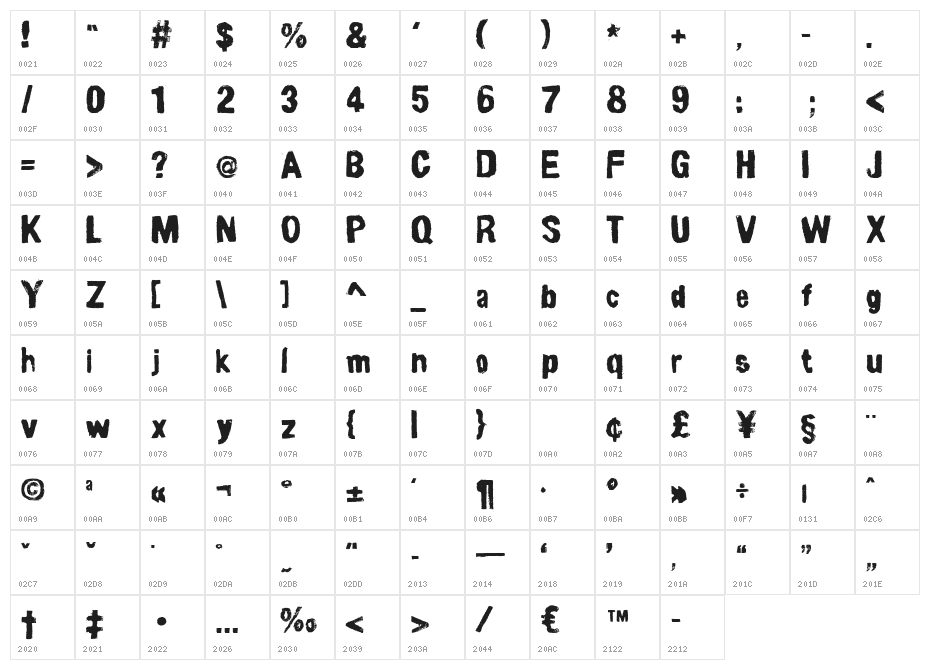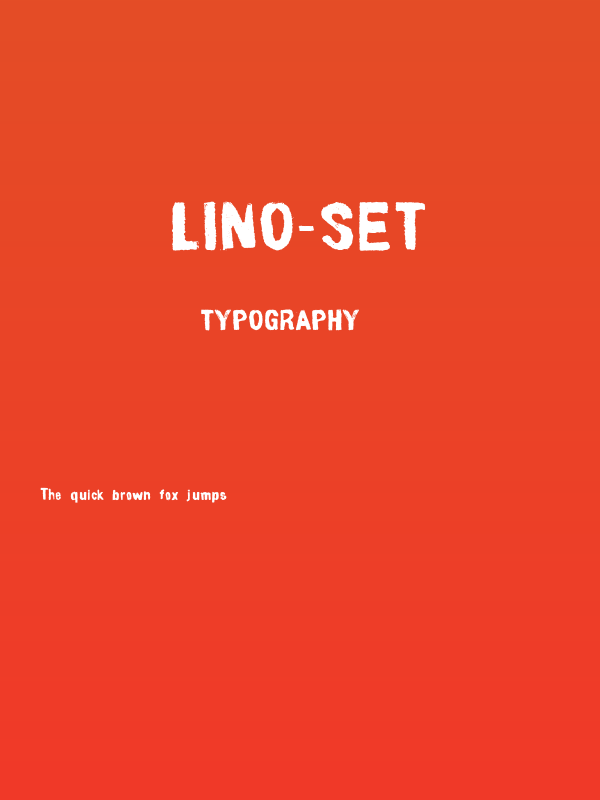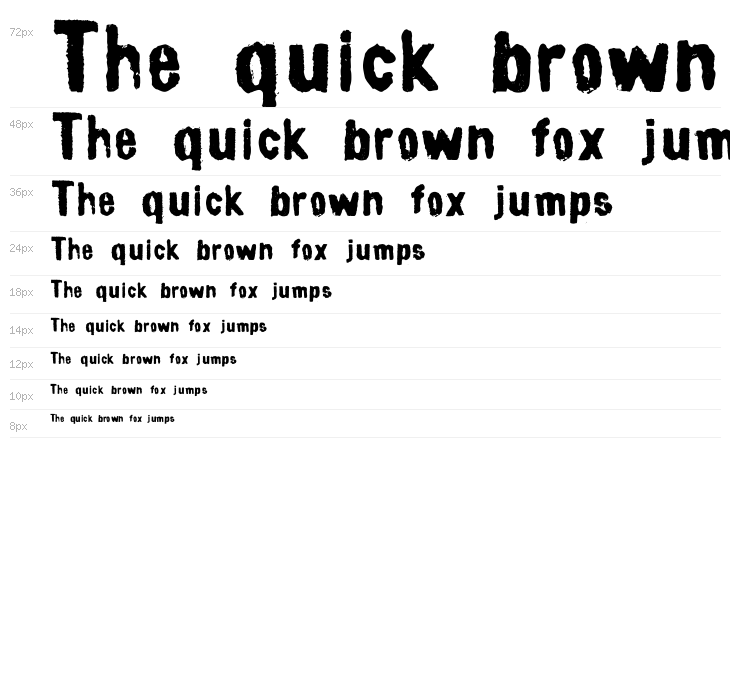
lino-set Font
lino-set Description
This font exhibits a bold and rugged style, characterized by its distressed and textured appearance. The letters have an uneven, hand-crafted look, reminiscent of vintage printing techniques. The uppercase and lowercase characters maintain a consistent weight, with slightly irregular edges that add to the font's unique charm. The numbers and special characters follow the same aesthetic, providing a cohesive look across all glyphs. This font's boldness and texture make it stand out, offering a distinct personality that is both eye-catching and memorable.
| Overall Style | Vintage |
| Proposed Projects | Ideal for projects requiring a vintage or rustic feel, such as posters, branding for artisanal products, or any design needing a bold statement. |